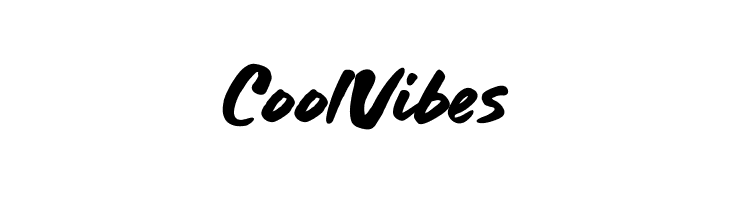
A playful, handwritten-style font with consistent strokes and a casual vibe.
A bold, retro font with playful curves and a 1960s vibe.
A bold, retro font with playful, exaggerated letterforms and a 60s-70s vibe.
A bold, distressed font with a vintage rock poster vibe.
A playful, handwritten font with a casual and friendly vibe.
A playful, marker-style font with bold, rounded characters and a casual vibe.
A playful, casual handwritten font with uneven strokes and a friendly vibe.
A whimsical, hand-drawn font with elongated, irregular letterforms and a mysterious vibe.
A playful, casual handwritten font with a youthful and energetic vibe.
A playful, casual handwritten font with smooth, flowing lines and a friendly vibe.
A bold, graffiti-inspired font with angular, stylized letterforms and an urban vibe.
A bold, geometric font with a modern retro vibe and decorative elements.
A playful, rounded font with bold strokes and a friendly vibe.
A playful, handwritten font with smooth, flowing strokes and a casual vibe.
A grungy, distressed font with jagged, irregular strokes and a rebellious vibe.
A bold, decorative font with intricate patterns and a rugged, adventurous vibe.
A playful, hand-drawn font with bold, dynamic strokes and a casual vibe.
A hand-drawn, sketch-like font with irregular strokes and a casual, artistic vibe.
A bold, energetic handwritten font with expressive strokes and a playful vibe.